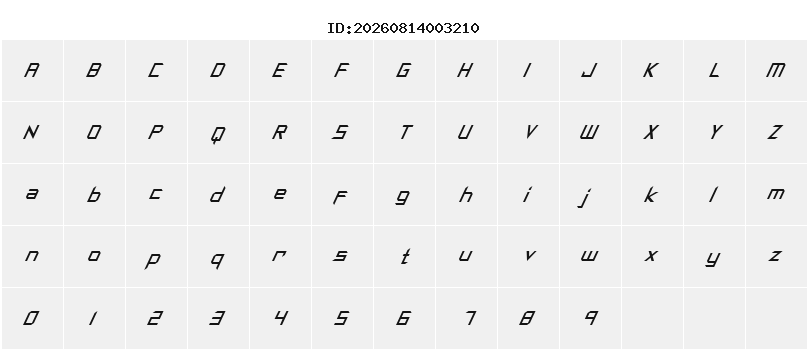
• Font Name: Synthetic Sharps
• Designer: Darrell Flood
About Synthetic Sharps.otf
Synthetic Sharps.otf is a modern, elegant sans-serif font designed for ultimate readability and visual harmony. Perfect for branding, headlines, web design, and print materials.